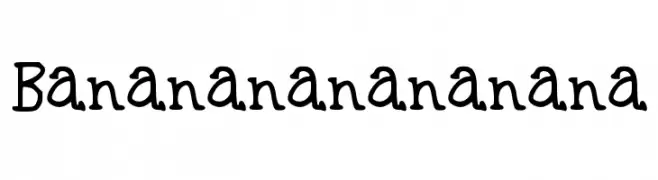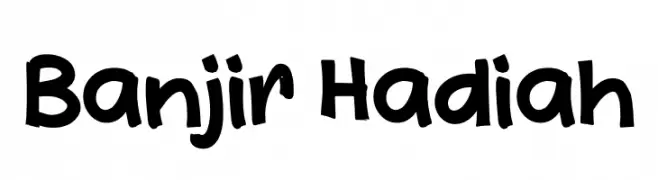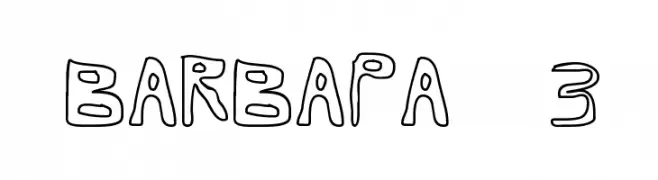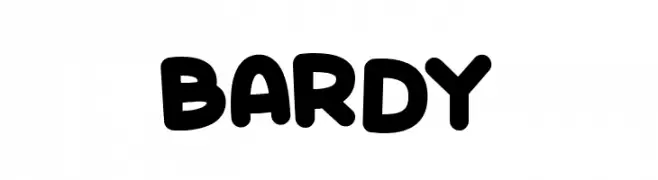
A bold, playful, hand-drawn font with a whimsical and lively style.
A bold, playful font with a hand-drawn, whimsical style.
A bold, playful font with a hand-drawn, marker-like style.
A bold, dynamic font with a twisted, hand-drawn appearance.
A bold, hand-drawn 3D block font with intricate line work.
A bold, twisted outline font with a dynamic, hand-drawn style.
A playful, bold font with rounded, bubble-like characters.